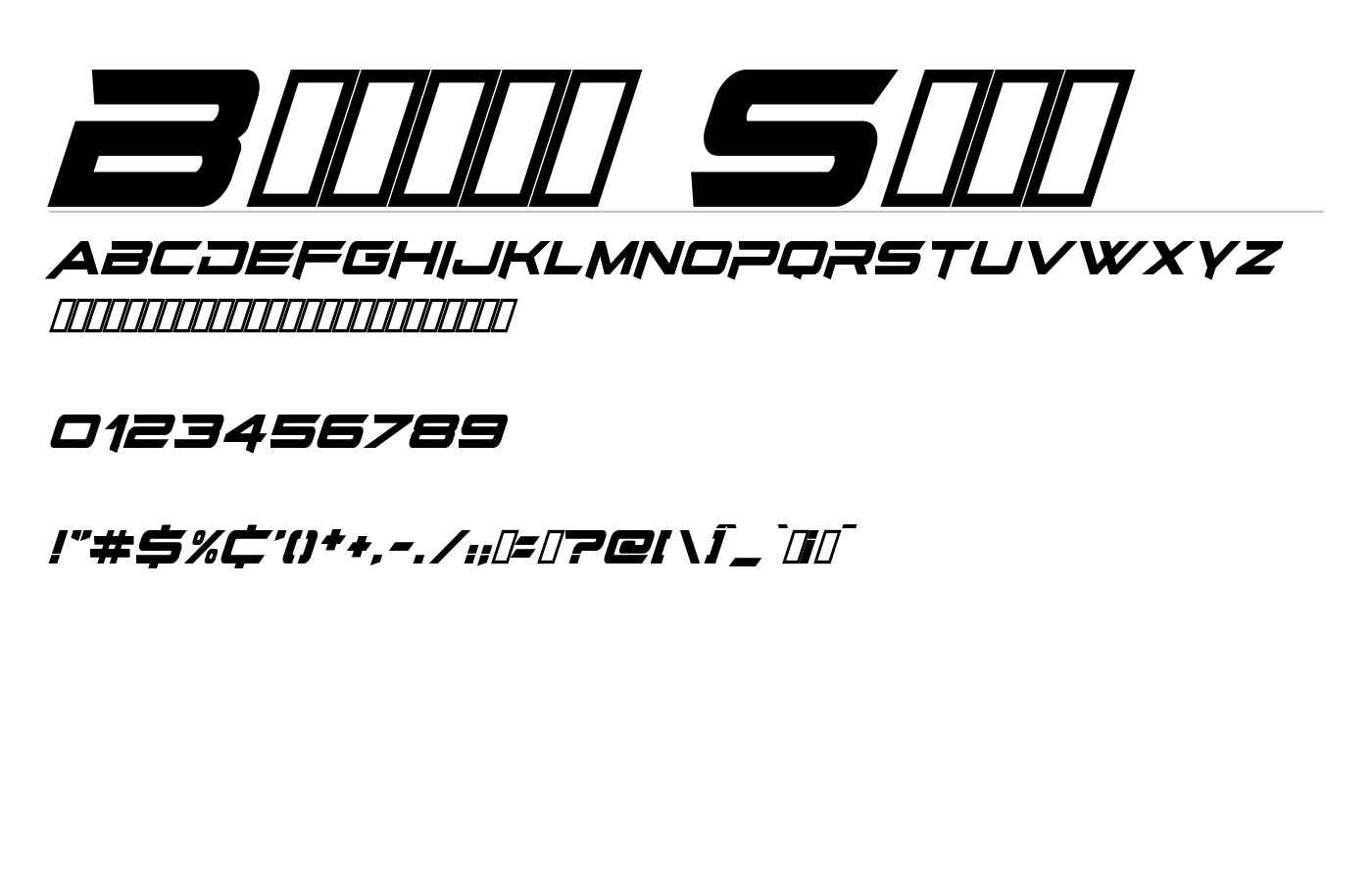
Bright Star is a bold, condensed sans-serif font with a strong futuristic and sporty vibe, characterized by its sharp angles and slanted letterforms that create a sense of motion and energy. Its high contrast and geometric shapes make it ideal for impactful headlines, logos, and branding in tech or automotive industries where a modern, dynamic look is desired. This font excels in grabbing attention and conveying strength and speed, making it perfect for posters, packaging, and digital media aimed at a bold, contemporary audience.
Bright Star Font
About Bright Star Font
| Font family | Bright Star Font |
| Designer | imagex |